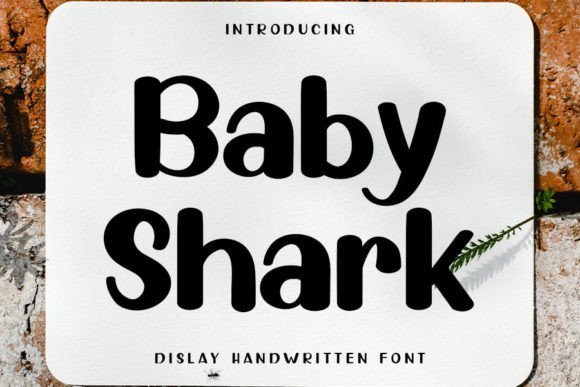
Unleashing Your Inner Artist: The Magic of Baby Shark Font
Have you ever sat down with a blank canvas, a blank page, or even a blank screen, and felt the rush of creativity coursing through your veins? The possibilities are endless, and the excitement is palpable. For designers, artists, and makers, this feeling is what drives us to create something truly special. And what’s more special than using the perfect font to bring our ideas to life?
Enter Baby Shark Font, a delightful and playful handwritten font that’s sure to capture the hearts of anyone who lays eyes on it. With its friendly feel and casual charm, this font is perfect for Instagram posts, DIY projects, and any creative endeavor that requires a touch of whimsy. Whether you’re a seasoned designer or a DIY enthusiast, Baby Shark Font is an invaluable tool that will help you turn your ideas into stunning works of art.
Baby Shark Font Key Features
• Unique Hand-Drawn Style: The Baby Shark Font features a distinctive, hand-drawn design that captures the playful and whimsical spirit of the popular children’s song.
Baby Shark Font Review
As a designer, I was both excited and skeptical about reviewing the “Baby Shark Font”. The font is based on the popular children’s song and has been designed to resemble the characters’ names. Here’s my honest take on it.
• Unique concept: The font is a creative take on a well-known brand and can add a fun touch to children’s content.
• Easy to read: Despite its playful design, the font is still legible and can be used in various contexts.
• Color options: The font comes with a range of color schemes that can be used to match the characters’ personalities.
• Limited versatility: The font’s design is very specific to the “Baby Shark” brand and may not be suitable for other projects.
• Lack of professionalism: The font’s playful design may not be suitable for more serious or professional content.
• Dependence on the brand: The font’s appeal may be limited to fans of the “Baby Shark” song and may not be widely recognized or appreciated.
Overall, the “Baby Shark Font” is a fun and creative addition to any designer’s toolkit. While it may not be suitable for every project, it can add a unique touch to children’s content and branding.
Getting the Most Out of the Baby Shark Font
The Baby Shark Font is ideal for creating eye-catching and playful designs, especially for kids’ parties, nursery decorations, or educational materials. To get the most out of it, experiment with different font sizes, colors, and combinations with other fonts to create a visually appealing design.
The Baby Shark Font is commonly used for:
• Kids’ party invitations and decorations
• Nursery decorations and wall art
• Children’s educational materials and worksheets
• Social media graphics and animations